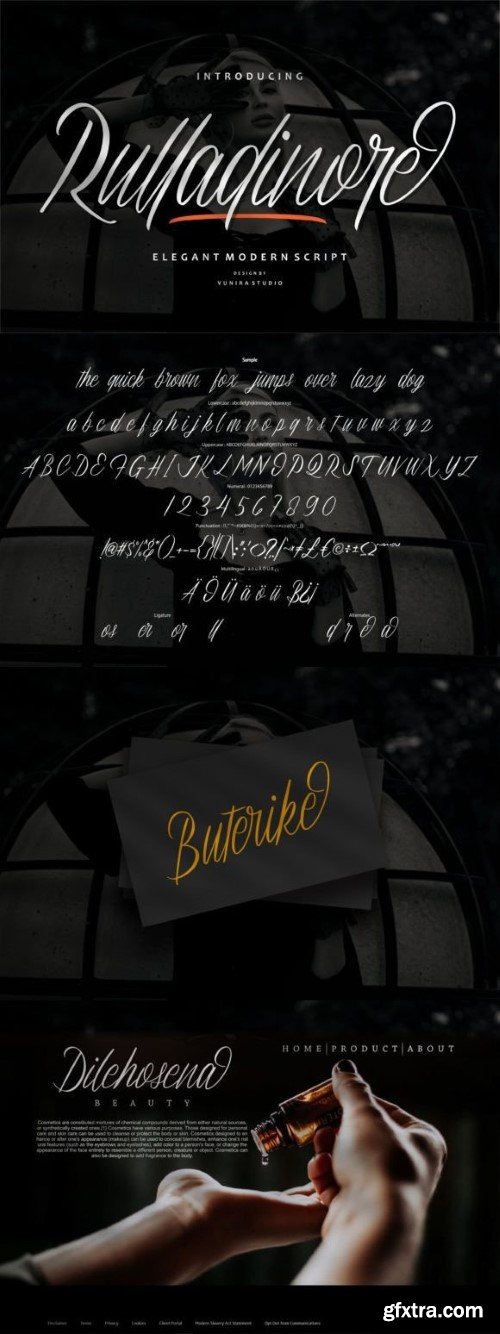
Rulladinore is a sophisticated and modern script font that effortlessly blends elegance with a contemporary touch. With its smooth and stylish strokes, this font adds a touch of class to your projects. Perfect for invitations, branding, and any design where a sleek and refined look is desired. Elevate your creations with the timeless appeal of Rulladinore for a touch of modern elegance.